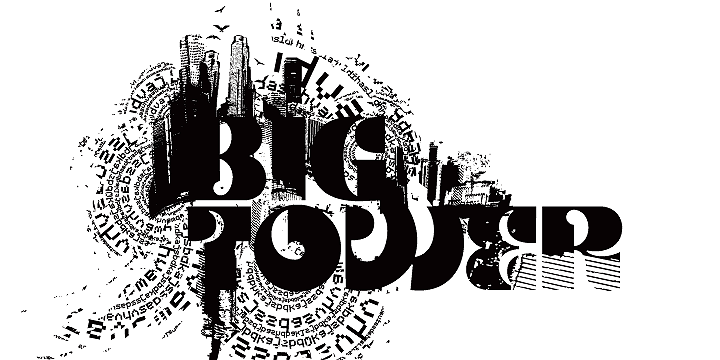
About the Kare Font
About Kare Font Family Kare is a custom font which is applicable for any type of graphic design – web, print, motion graphics etc and perfect for t-shirts and logos, Inspired by the popular and unique Motter Ombra typeface designed by Othmar Motter, Designers: Svetoslav SimovPublisher: FontfabricFoundry: FontfabricDesign Owner: FontfabricMyFonts debut: Oct 8, 2009 Kare™ is a trademark of Fontfabric